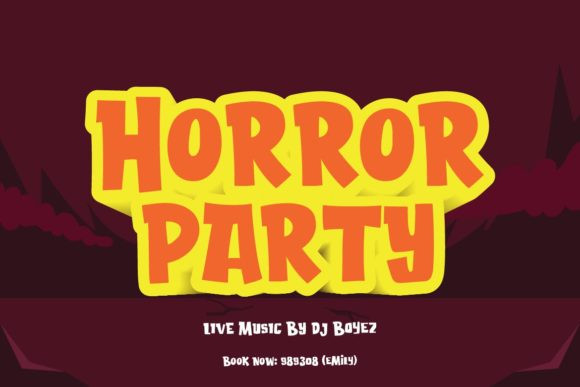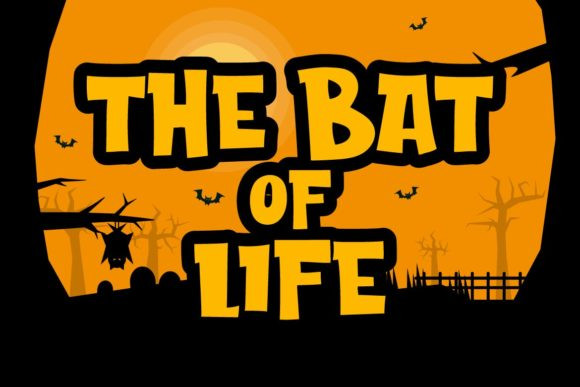
Attack of Monster Font
Attack of Monster is a fun and quirky looking display font. It embodies joy and genius and is the perfect choice for any children activity or school project.